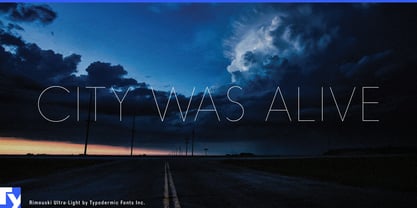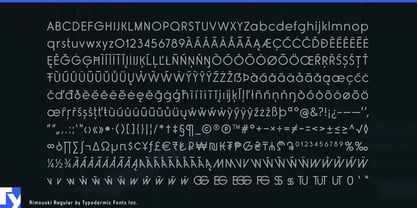
Rimouski
by Typodermic
Step into the world of Rimouski, a rounded geometric typeface that redefines the boundaries between elegance and whimsy. At first glance, its meticulously crafted letterforms exude a sense of refined sophistication, but look closer, and you’ll discover a playful spirit waiting to be unleashed.
What sets Rimouski apart is its ingenious use of OpenType technology. The “stylistic alternates” feature is not just a typographic tool—it’s a gateway to creativity. With a simple click, you can transform your text, introducing oddly angled characters that add an unexpected twist to your designs. This duality allows Rimouski to seamlessly transition from polished corporate communications to avant-garde artistic expressions. Rimouski’s versatility shines through its five carefully calibrated weights and their italic counterparts. This range provides designers with a robust toolkit, allowing for precise control over the visual tone of any project. From delicate, whisper-thin lines to bold, attention-grabbing statements, Rimouski adapts to your vision with effortless grace.
The typeface’s linguistic versatility matches its design flexibility. Supporting a vast array of Latin-based European writing systems, Rimouski ensures your message maintains its impact and nuance across cultures. Whether you’re crafting a multilingual branding campaign or designing a pan-European publication, Rimouski speaks your language—and your audience’s—with fluency and style. Choose Rimouski when you need typography that doesn’t just communicate—it converses. Its unique blend of geometric precision and quirky charm makes it the ideal choice for brands and projects that aim to balance professionalism with personality. Whether you’re designing a cutting-edge tech startup’s identity or creating signage for a modern art museum, Rimouski provides the typographic foundation to bring your ideas to life.
In a world where visual distinction is paramount, Rimouski offers a refreshing alternative to the expected. Embrace the duality of Rimouski—where every letter is an opportunity for both clarity and creativity.
Designers: Ray Larabie
Publisher: Typodermic
Foundry: Typodermic
Original Foundry: Typodermic